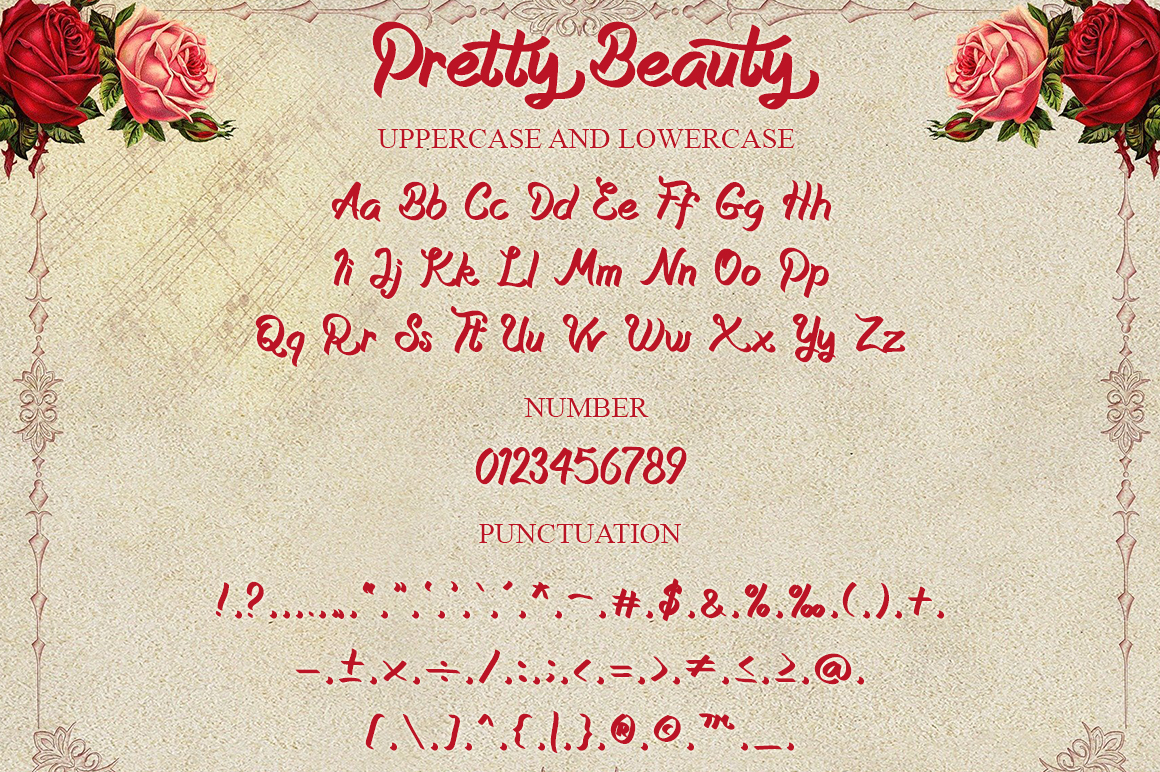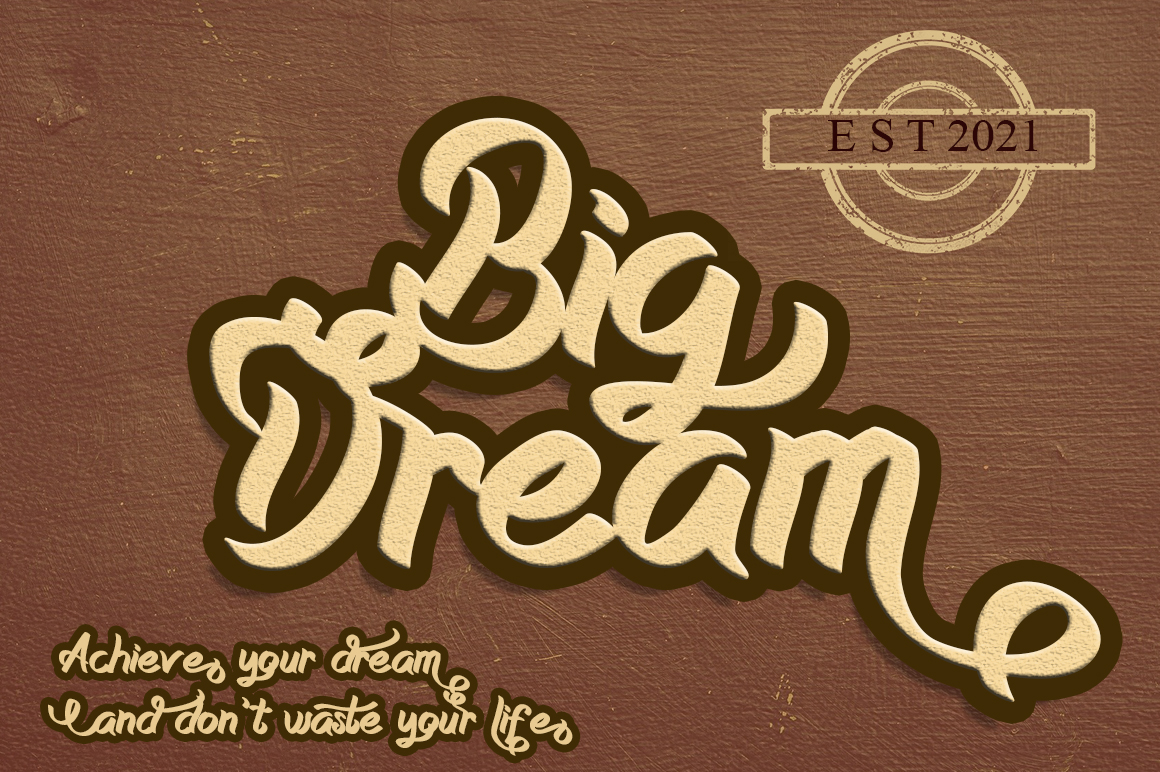
Pretty Beauty Script Font
It’s a sweet and cursive handwritten font. This trendy and thick lettered font will look gorgeous on a variety of design ideas. It will add a joyful and romantic touch to each of your projects!